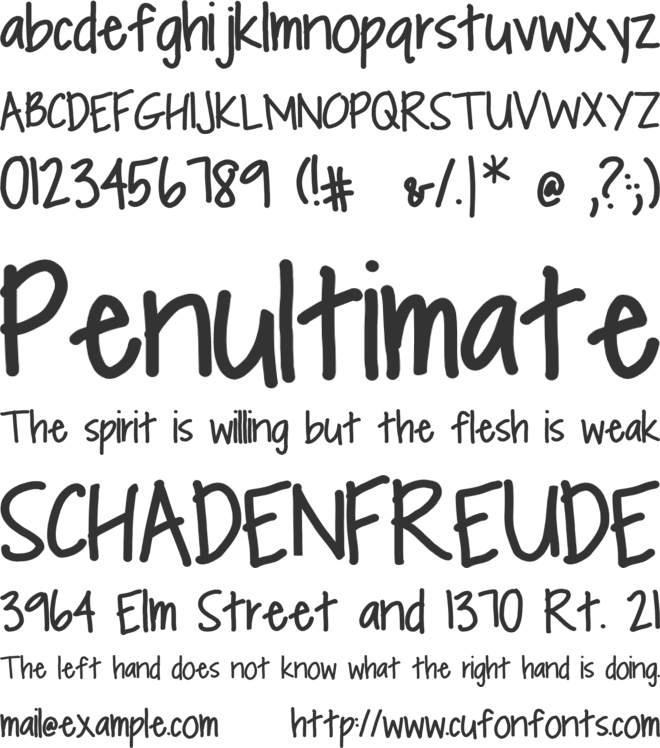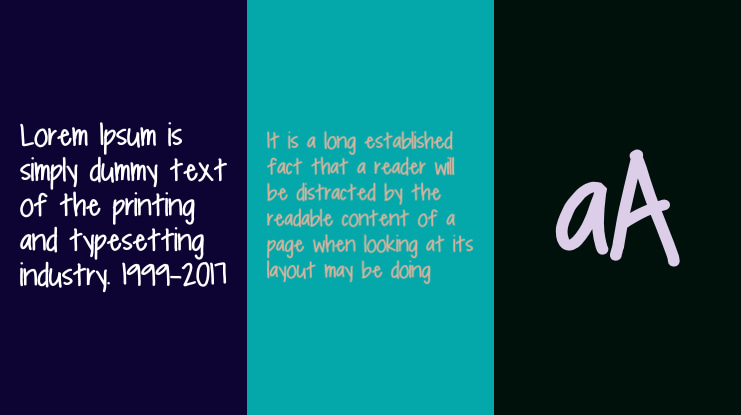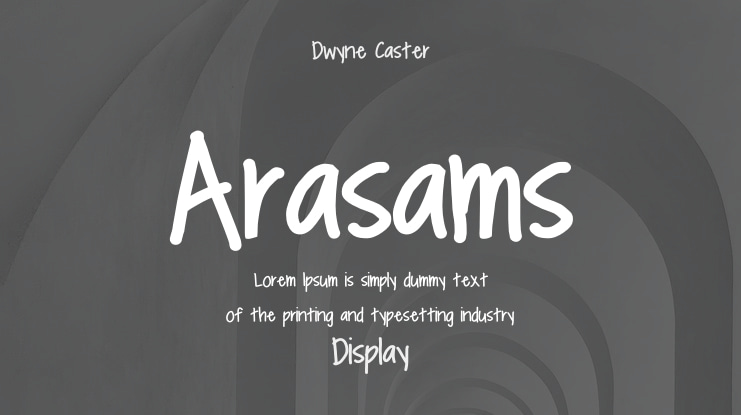
Arasams Font
Introducing Arasams, an enchanting brew of playful charm and aesthetic brilliance! Imbued with a comic flair, this delightful font sparks joy and creativity in equal measure. It’s the quintessential choice for crafting fun projects for kids or channeling a whimsical, kindergarten-inspired vibe. With Arasams, you can create a world where art and whimsy intertwine effortlessly! Experience this delightful font, and let your designs speak volumes of your youthful, playful spirit.